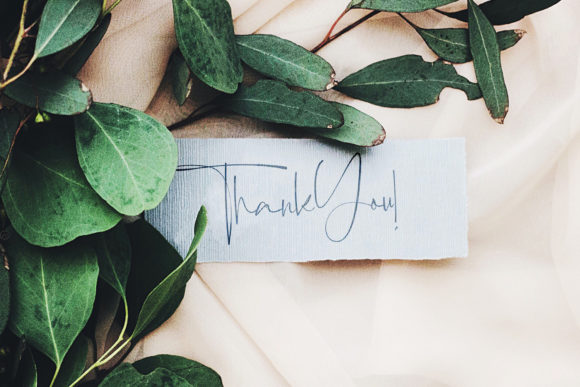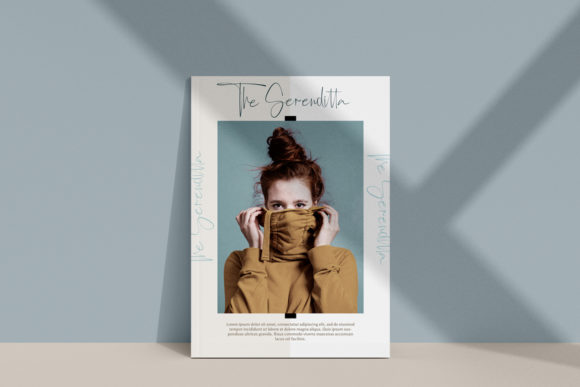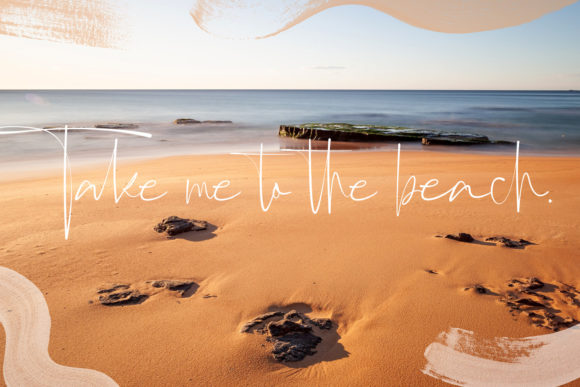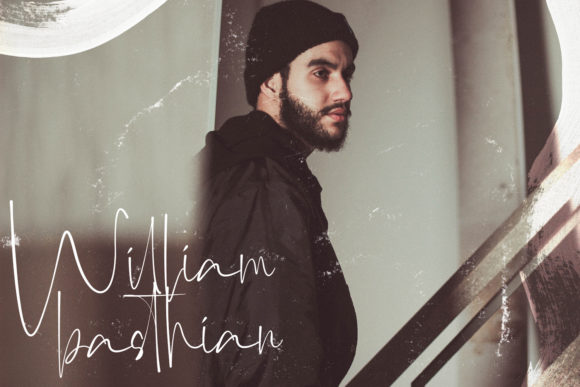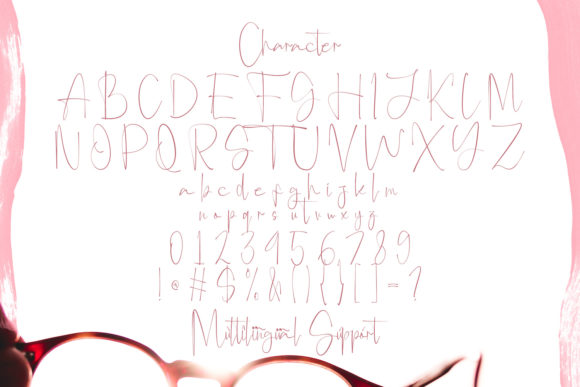
About Anjany Sallentiny Font
Anjany Sallentiny is a stylish and incredibly elegant script font. It looks stunning on wedding invitations, thank you cards, quotes, greeting cards, logos, business cards and every other design which needs a handwritten touch. This font is PUA encoded which means you can access all of the glyphs and swashes with ease!